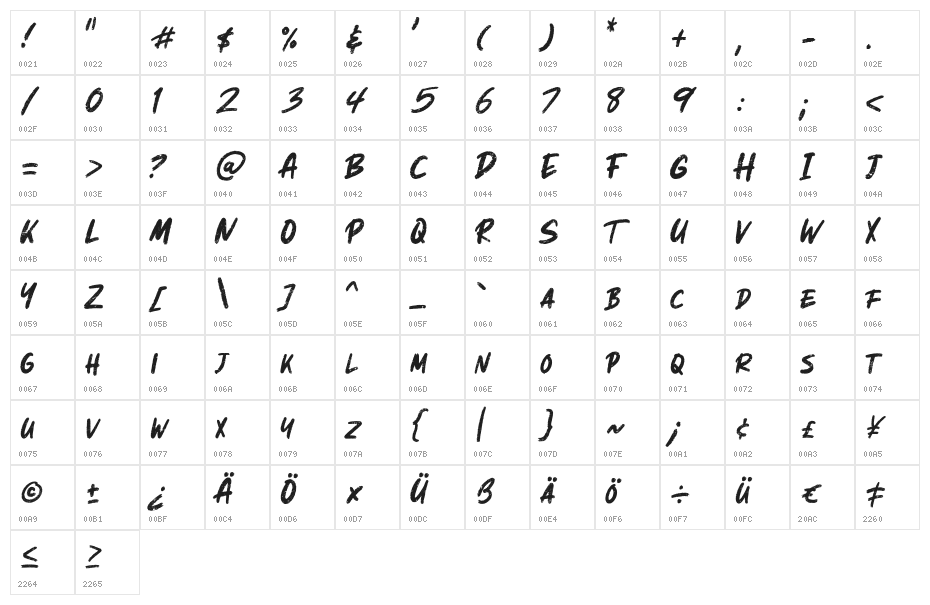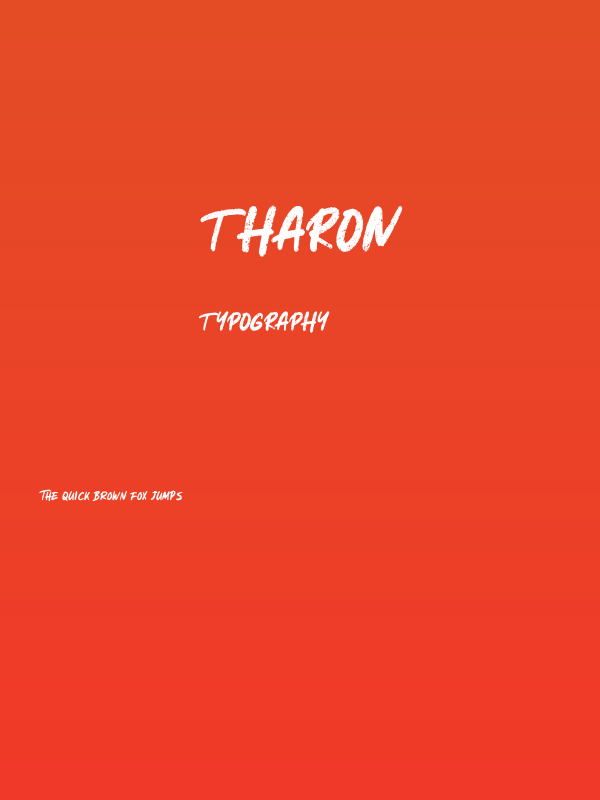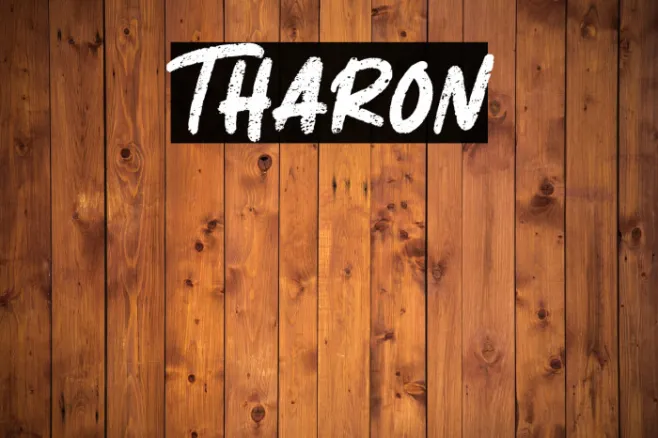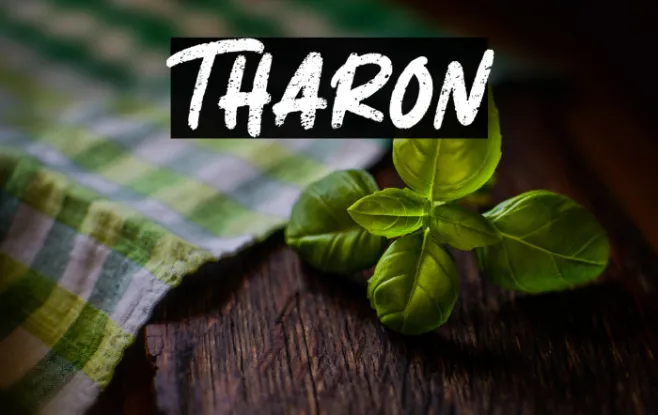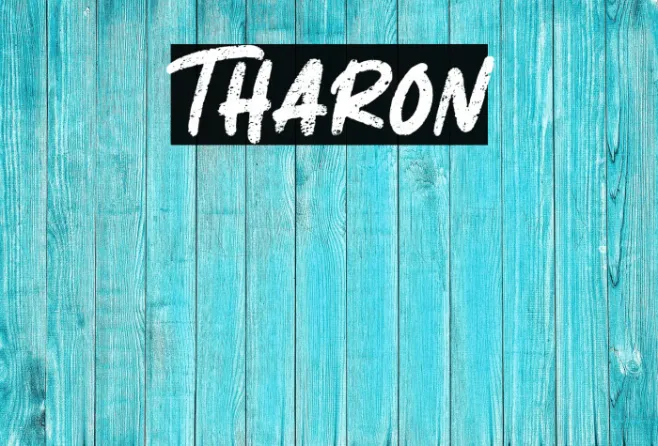
Tharon Font
Tharon Description
This font features a bold, brush-like style with a textured, hand-painted appearance. The characters are dynamic and expressive, with a slightly slanted orientation that adds a sense of movement and energy. The strokes are thick and uneven, giving it a raw, artistic feel. The uppercase and lowercase letters maintain a consistent style, while the numbers and special characters complement the overall aesthetic. This font is ideal for projects that require a bold, artistic touch, such as posters, branding, and creative designs.
| Overall Style | Artistic, Expressive |
| Proposed Projects | Posters, branding, creative designs, artistic projects. |